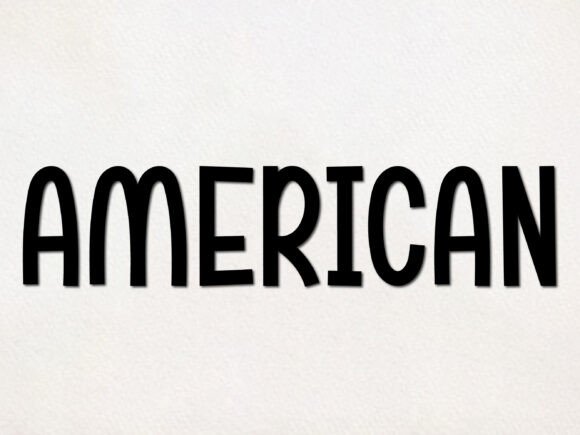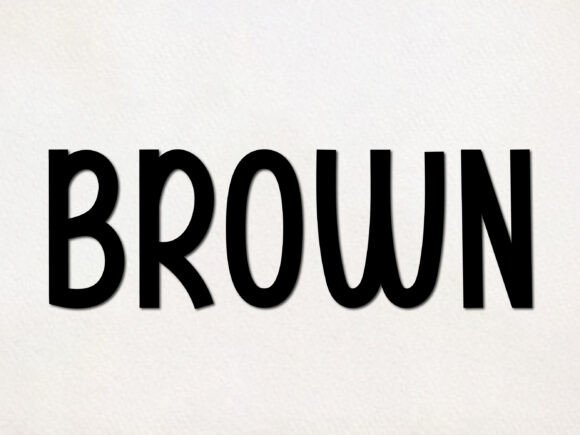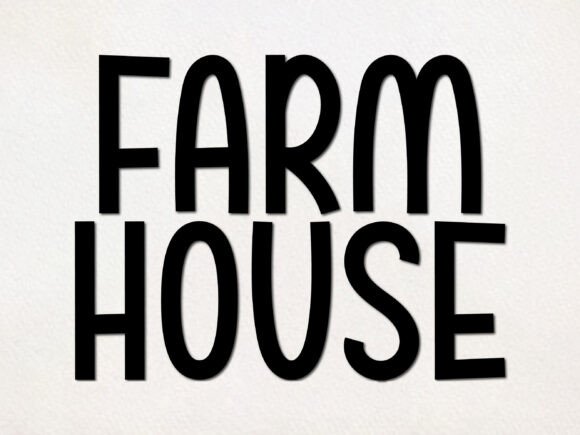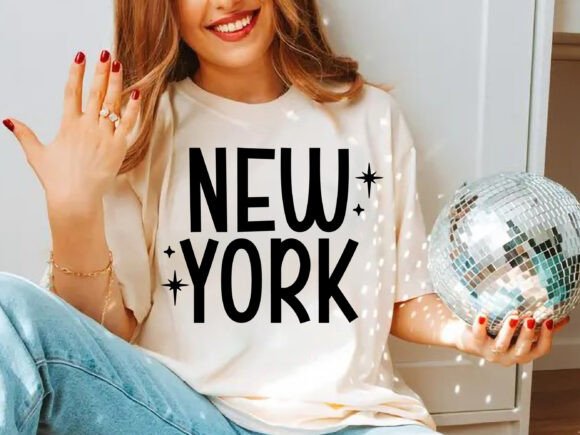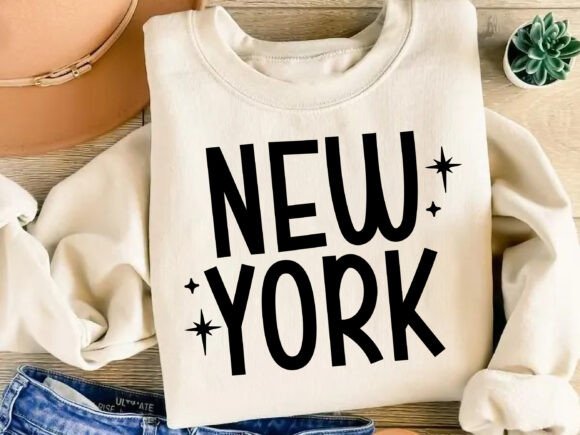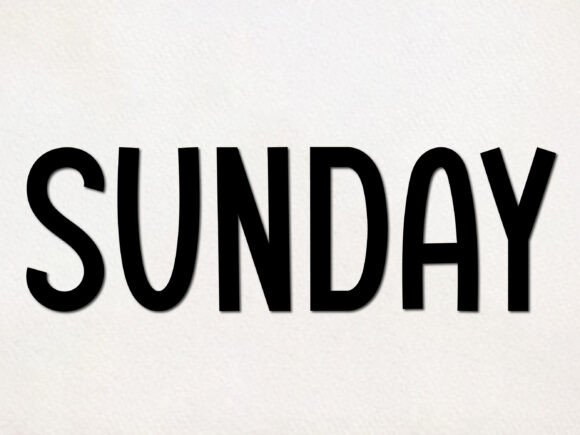
Introducing Handmade Font: The Perfect Addition to Your Design Projects
Are you a designer, crafter, or digital artist looking for a unique and stylish font to elevate your work? Look no further than Handmade Font, a beautiful, handwritten font that adds a touch of elegance and charm to any design project. In this article, we’ll explore the features and benefits of Handmade Font, and show you how it can be used to create stunning crafts, digital designs, presentations, and greeting cards.
The Characteristics of Handmade Font
Handmade Font is a stylish, handwritten font that is perfect for adding a personal touch to your designs. Its cheerful and nostalgic feel makes it ideal for a wide range of projects, from crafts and digital designs to presentations and greeting cards. The font features:
• Unique and elegant lettering: Each letter is carefully crafted to create a distinctive and charming look that sets it apart from other fonts.
• Handwritten feel: The font has a warm, handwritten feel that adds a touch of personality to your designs.
• Versatility: Handmade Font is suitable for a wide range of projects, from formal presentations to casual crafts and digital designs.
Uses for Handmade Font
Handmade Font is a versatile font that can be used in a variety of design projects, including:
• Crafts: Add a personal touch to your handmade crafts, such as scrapbooking, card making, and journaling.
• Digital designs: Use Handmade Font to create stunning digital designs, such as social media graphics, blog posts, and email newsletters.
• Presentations: Elevate your presentations with a touch of elegance and sophistication.
• Greeting cards: Create beautiful, one-of-a-kind greeting cards for special occasions.
Benefits of Using Handmade Font
There are many benefits to using Handmade Font in your design projects, including:
• Uniqueness: Handmade Font adds a touch of personality and uniqueness to your designs, setting them apart from others.
• Elegance: The font’s elegant lettering and handwritten feel add a touch of sophistication to your designs.
Tips for Using Handmade Font
Here are some tips for getting the most out of Handmade Font:
• Experiment with different colors: Handmade Font looks great in a variety of colors, so don’t be afraid to experiment and find the perfect hue for your design.
• Mix and match with other fonts: Combine Handmade Font with other fonts to create a unique and eye-catching design.
• Use it for headings and titles: Handmade Font is perfect for headings and titles, adding a touch of elegance and sophistication to your designs.
Handmade Font is a beautiful, handwritten font that adds a touch of elegance and charm to any design project. With its unique and elegant lettering, handwritten feel, and versatility, it’s perfect for a wide range of projects, from crafts and digital designs to presentations and greeting cards. Whether you’re a designer, crafter, or digital artist, Handmade Font is a great addition to your font collection.